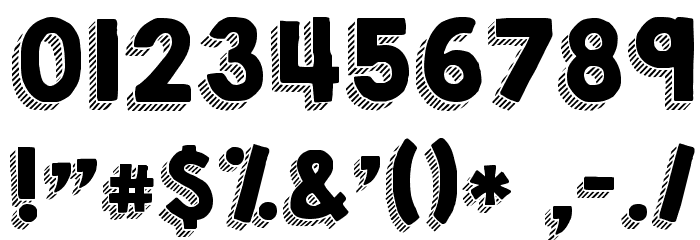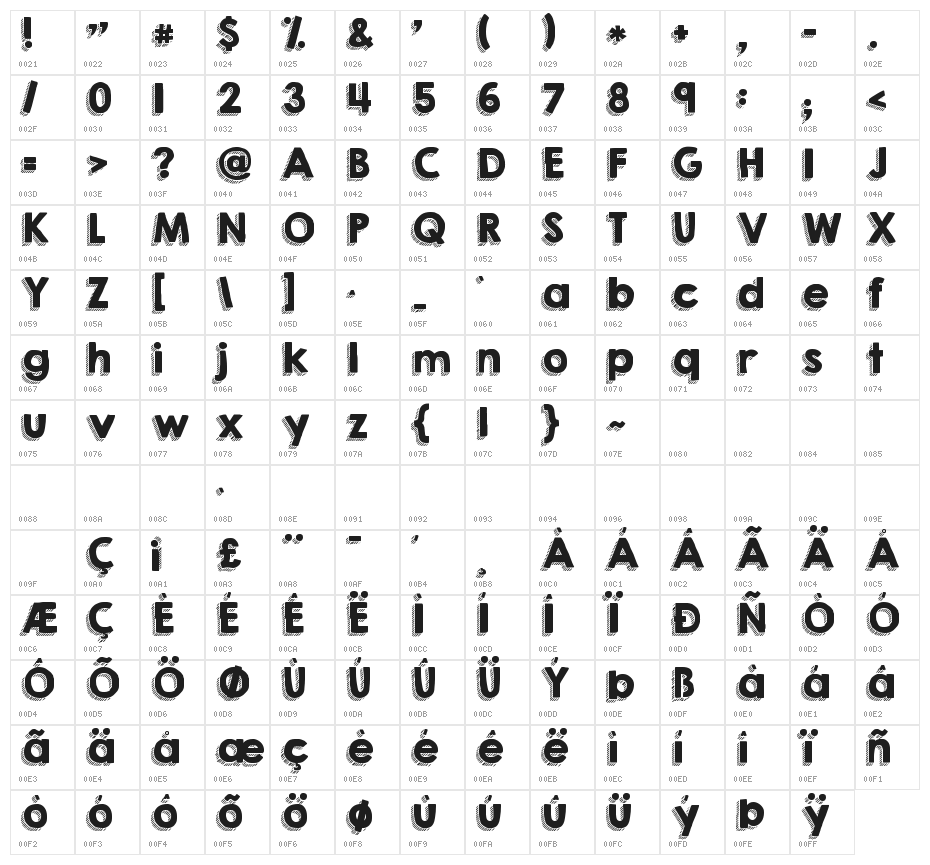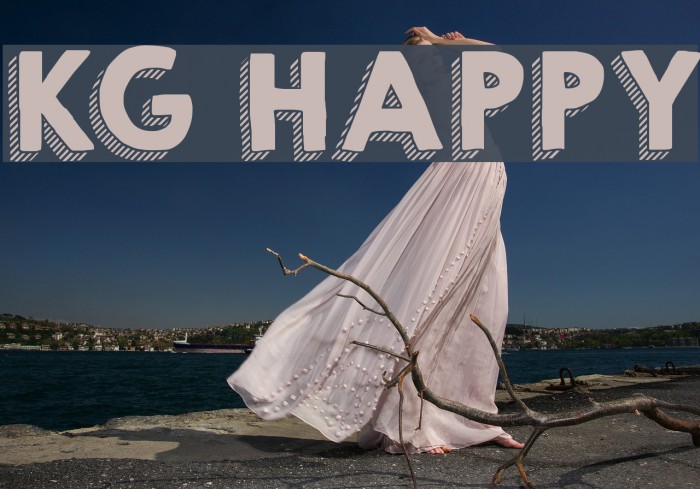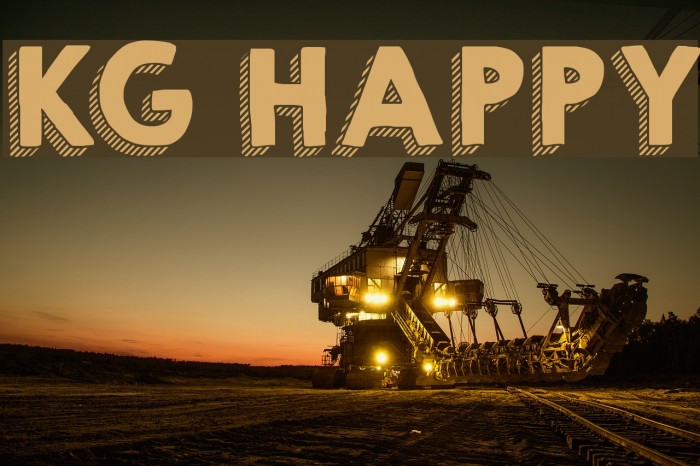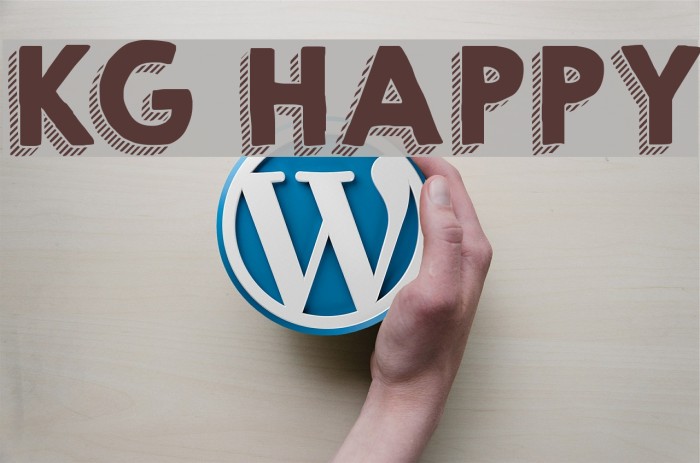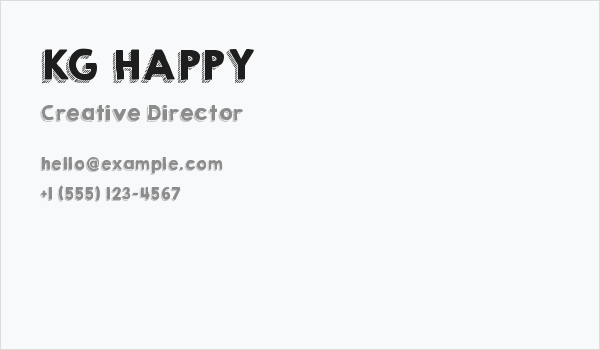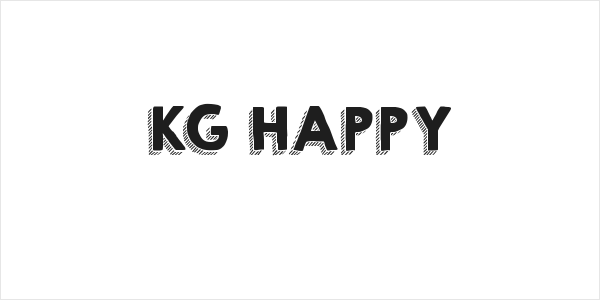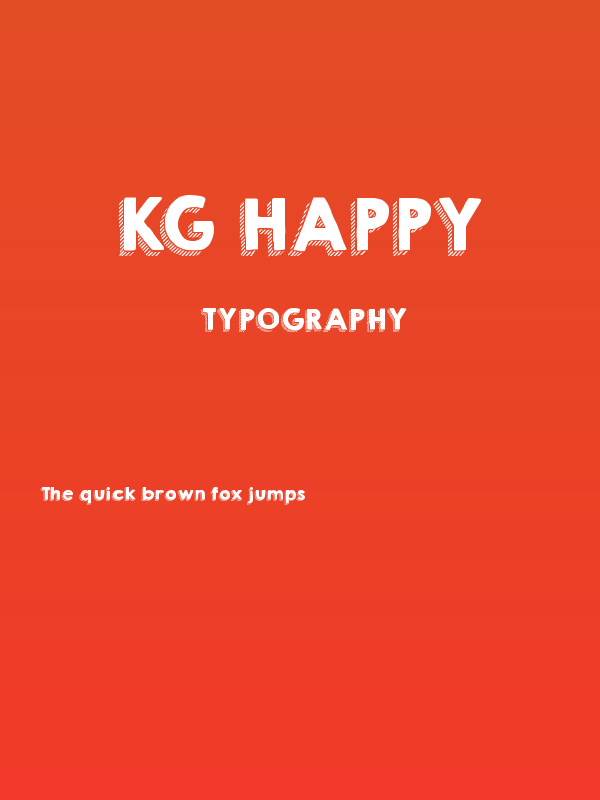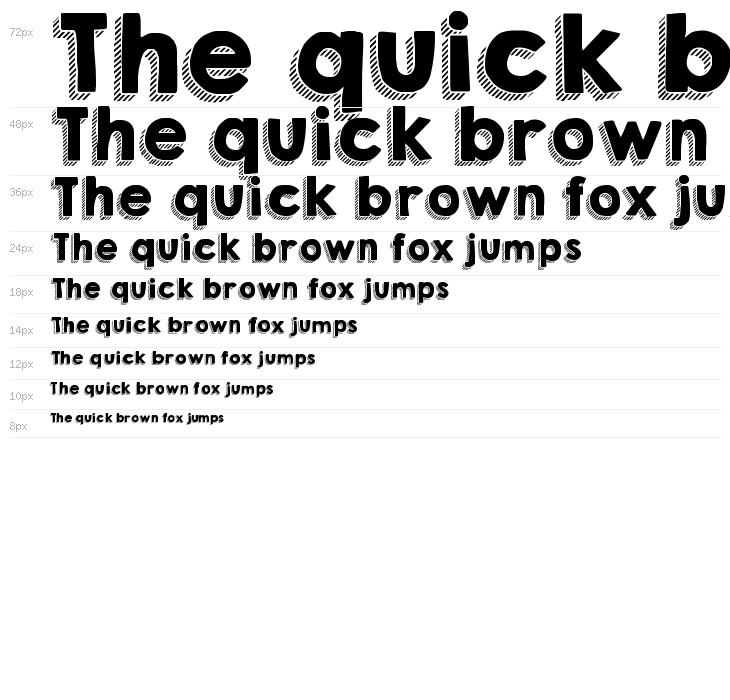
KG HAPPY Font
KG HAPPY Description
This font features a bold, playful style with a unique shadow effect that gives it a three-dimensional appearance. The letters are thick and rounded, providing a friendly and approachable feel. The shadowing is consistent across all characters, adding depth and a sense of movement. The font maintains a uniform stroke width, which contributes to its bold and impactful presence. It is highly legible, making it suitable for various display purposes. The characters are evenly spaced, ensuring readability while maintaining a cohesive look. This font is ideal for projects that require a fun and engaging visual element.
| Overall Style | Playful, Fun, Modern |
| Proposed Projects | Ideal for children's books, playful branding, posters, and creative advertisements. |